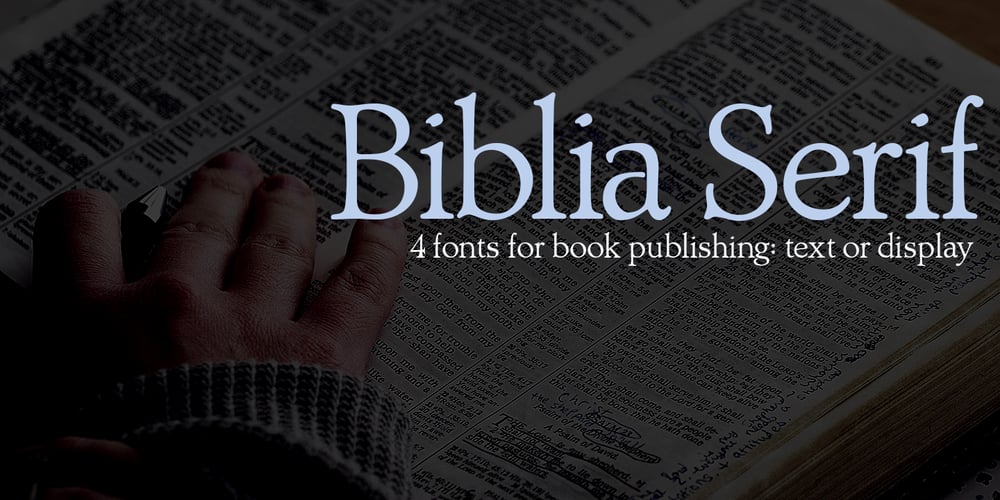
Biblia Serif Font Family was designed by David Bergsland and published by Hackberry Font Foundry. Biblia Serif contains 4 styles and family package options. This all started with a love for Minister. This is a font designed by Carl Albert Fahrenwaldt in 1929. In the specimen booklet there’s a scan from Linotype’s page many years ago. They no longer carry the font. I’ve gone quite a ways from the original. It was dark and a bit heavy. But I loved the look and the readability.This came to a head when I started my first book on all-digital printing written from 1994-1995, and published early in 1996. I needed fonts to show the typography I was talking about. At that point oldstyle figures, true small caps, and discretionary ligatures were rare. More than that text fonts for book design had lining OR oldstyle figures, lowercase OR small caps—never both.So, I designed the Diaconia family using the Greek word for minister. It was fairly rough. I knew very little. I later redesigned and updated Diaconia into Bergsland Pro—released in 2004. It was still rough (though I impressed myself).Now, with 4-font Biblia Serif family 13 years later, I’ve cleaned up, made the fonts more consistent internally, added more functional OpenType features, and brought the fonts into the 21st century. I used the 2017 set of features: small caps, small cap figures, oldstyle figures, fractions, lining figures, ligatures and discretionary ligatures. These are fonts designed for book production and work well for text or heads.Finally, in 2021, I went over the fonts entirely and remade them in Glyphs.